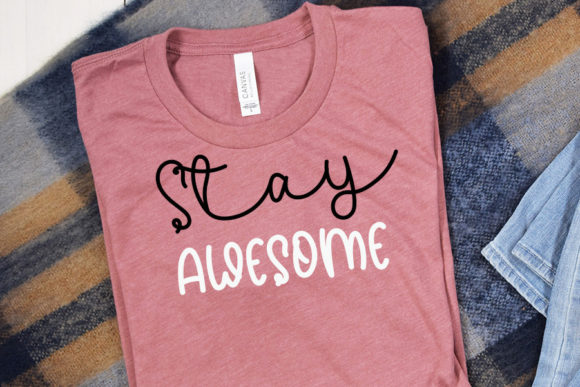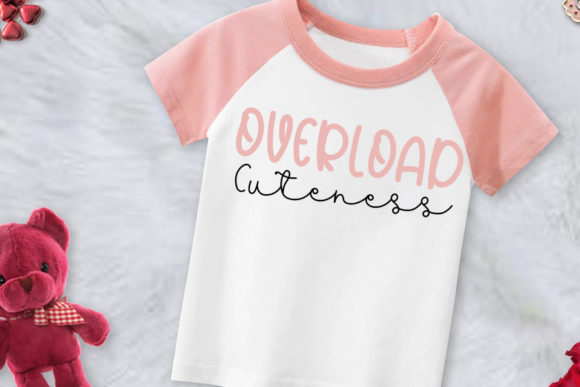
Charming Beautiful Font
db-ku.com - Script & Handwritten -- Charming Beautiful is an elegant handwritten font. This font is the perfect fit for all of your logos, branding, social media, and crafty DIY projects.